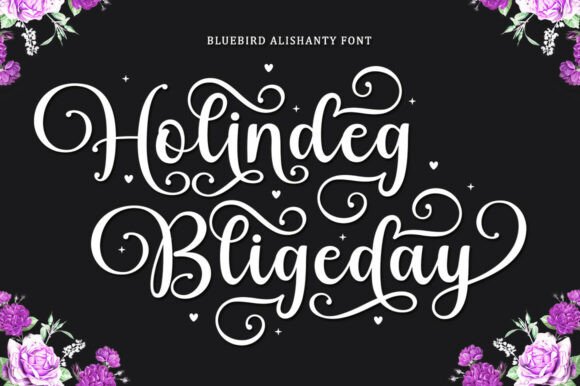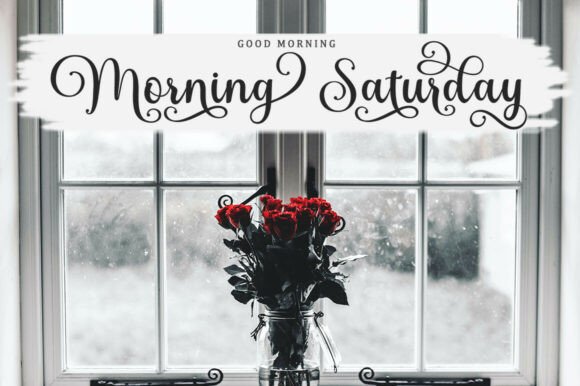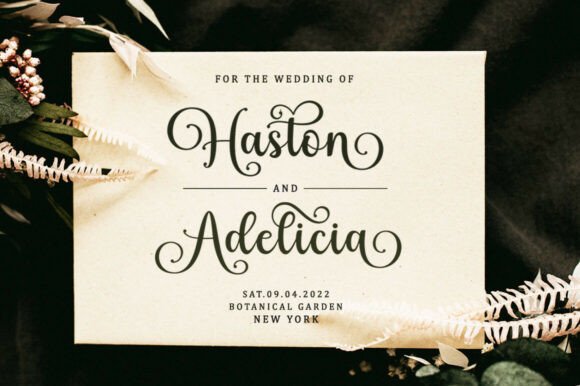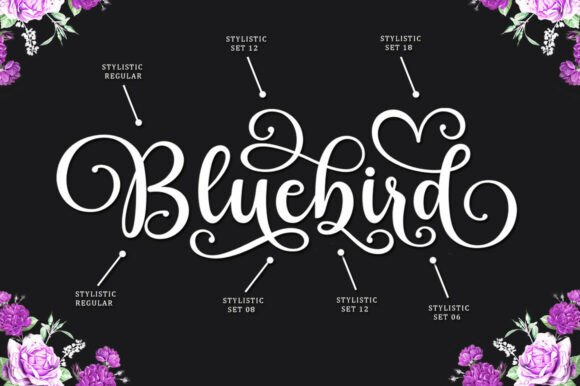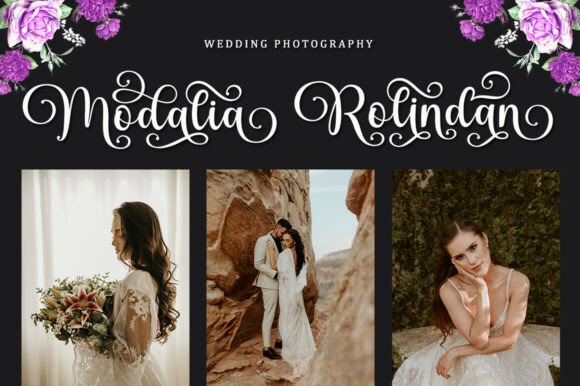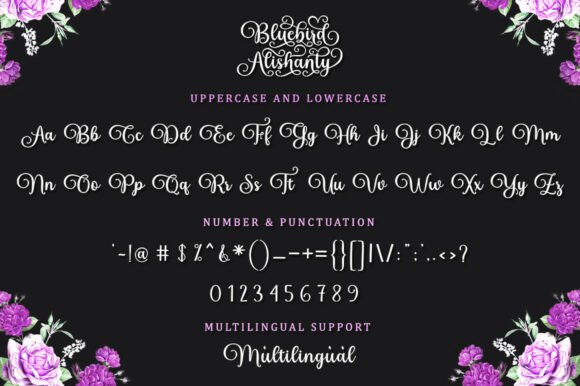
Introducing Bluebird Alishanty: The Whimsical Elegance of Modern Calligraphy
In the world of typography, few fonts capture the essence of whimsical elegance as beautifully as Bluebird Alishanty. This modern calligraphy script font is designed to bring a touch of romantic charm to your projects, making it an exceptional choice for designers and crafters looking to infuse their work with a sense of artisanal sophistication. With its rhythmic, hand-penned silhouette, Bluebird Alishanty is the perfect addition to any creative endeavor that requires a dash of feminine flair.
The Art of Whimsical Elegance
Bluebird Alishanty’s design is rooted in the art of modern calligraphy, where the fluidity of handwritten script meets the precision of digital typography. Each letter is carefully crafted to evoke a sense of movement and flow, creating a rhythmic effect that is both soothing and captivating. The font’s whimsical elegance is characterized by its delicate swashes, subtle flourishes, and gentle curves, which come together to create a truly enchanting visual experience.
So, what makes Bluebird Alishanty the perfect choice for your creative projects? For starters, its romantic and artisanal aesthetic makes it an excellent fit for:
- Wedding Stationery: Add a touch of elegance to your wedding invitations, save-the-date cards, and other stationery with Bluebird Alishanty’s beautiful script.
- Feminine Branding: Infuse your brand with a sense of whimsy and sophistication, perfect for businesses that cater to a feminine audience.
- Boutique Logo Designs: Create a unique and captivating logo for your boutique or small business with Bluebird Alishanty’s distinctive style.
- Sentimental Greeting Cards: Make your greeting cards truly special with a font that conveys love, care, and attention to detail.
Key Features of Bluebird Alishanty
Here are some of the key features that make Bluebird Alishanty an exceptional choice for designers and crafters:
- Modern Calligraphy Style: Bluebird Alishanty boasts a fresh and contemporary take on traditional calligraphy, making it perfect for modern designs.
- Hand-Penned Silhouette: The font’s hand-penned silhouette gives it a unique, artisanal feel that’s perfect for projects that require a personal touch.
- Rhythmic Flow: Bluebird Alishanty’s rhythmic flow creates a soothing visual effect, making it ideal for designs that require a sense of movement and energy.
- Delicate Swashes and Flourishes: The font’s delicate swashes and flourishes add a touch of elegance and sophistication to any design.
Tips for Using Bluebird Alishanty
To get the most out of Bluebird Alishanty, here are some tips to keep in mind:
- Pair with Simple Fonts: Pair Bluebird Alishanty with simple, sans-serif fonts to create a striking contrast that highlights the font’s elegant features.
- Experiment with Colors: Don’t be afraid to experiment with different colors and textures to add depth and visual interest to your designs.
- Use for Headlines and Titles: Bluebird Alishanty is perfect for headlines and titles, where its elegant script can take center stage.
| Font Name | Bluebird Alishanty Font |
| Author | Bung Studio |
In conclusion, Bluebird Alishanty is a modern calligraphy script font that offers a unique blend of whimsical elegance and artisanal sophistication. With its rhythmic, hand-penned silhouette and delicate swashes and flourishes, this font is perfect for designers and crafters looking to infuse their projects with a touch of romantic charm. Whether you’re creating wedding stationery, feminine branding, boutique logo designs, or sentimental greeting cards, Bluebird Alishanty is an exceptional choice that’s sure to captivate your audience.